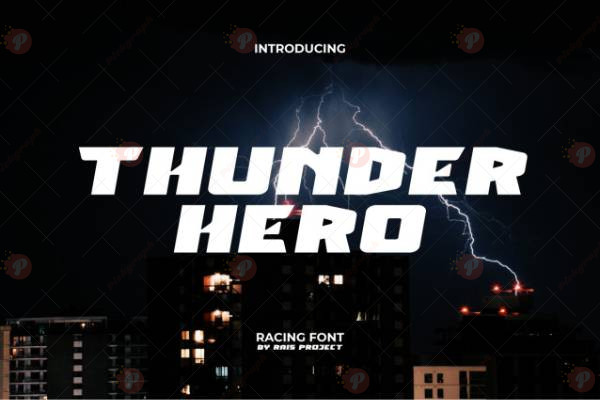
The Thunder Hero Font Free is a bold display typeface inspired by superhero comics, action movies, and gaming titles. With its powerful strokes and dynamic style, this font brings an energetic and heroic vibe to any design project.
Perfect for movie posters, gaming covers, superhero branding, action titles, YouTube thumbnails, event banners, and social media graphics, Thunder Hero ensures your text stands out with strength and impact.
Typeface: Bold / Display Typeface
Style: Heroic / Strong / Modern / Dynamic
Perfect for: Superhero Posters, Movie Titles, Gaming Graphics, Logos, Event Flyers, YouTube Thumbnails, Social Media Posts